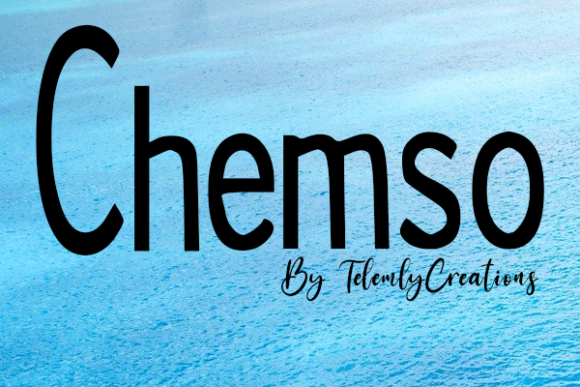
Meet Chemso, the Sans Serif font family that breathes life into your designs. TelemlyCreations, the masterminds behind this elegant typeface, have meticulously crafted each letterform to exude sophistication and simplicity. Whether you're creating wedding logos, film posters, or headlines, Chemso effortlessly elevates your designs with its clean lines and timeless appeal.
Immerse yourself in the world of Chemso and discover a font family that captures the essence of minimalism and charm. Its unassuming presence allows your words to shine, making it the perfect choice for subheadings and block letters. Watch as Chemso transforms your designs into visual masterpieces, leaving a lasting impression on your audience.
With Chemso, you're not just downloading a font; you're embarking on a journey of visual artistry. Experience the joy of effortless creativity as Chemso seamlessly blends with your designs, enhancing their impact and leaving an indelible mark on your audience. It's the perfect font family for those who appreciate the beauty of simplicity, the power of understatement, and the allure of timeless design.
Step into the realm of Chemso today and unlock a world of design possibilities. Let your imagination run wild as you create wedding logos that exude romance and elegance, film posters that capture the essence of cinematic storytelling, and headlines that command attention with their understated charm. Chemso is more than just a font; it's an invitation to explore the limitless boundaries of creativity and leave your mark on the world of design.